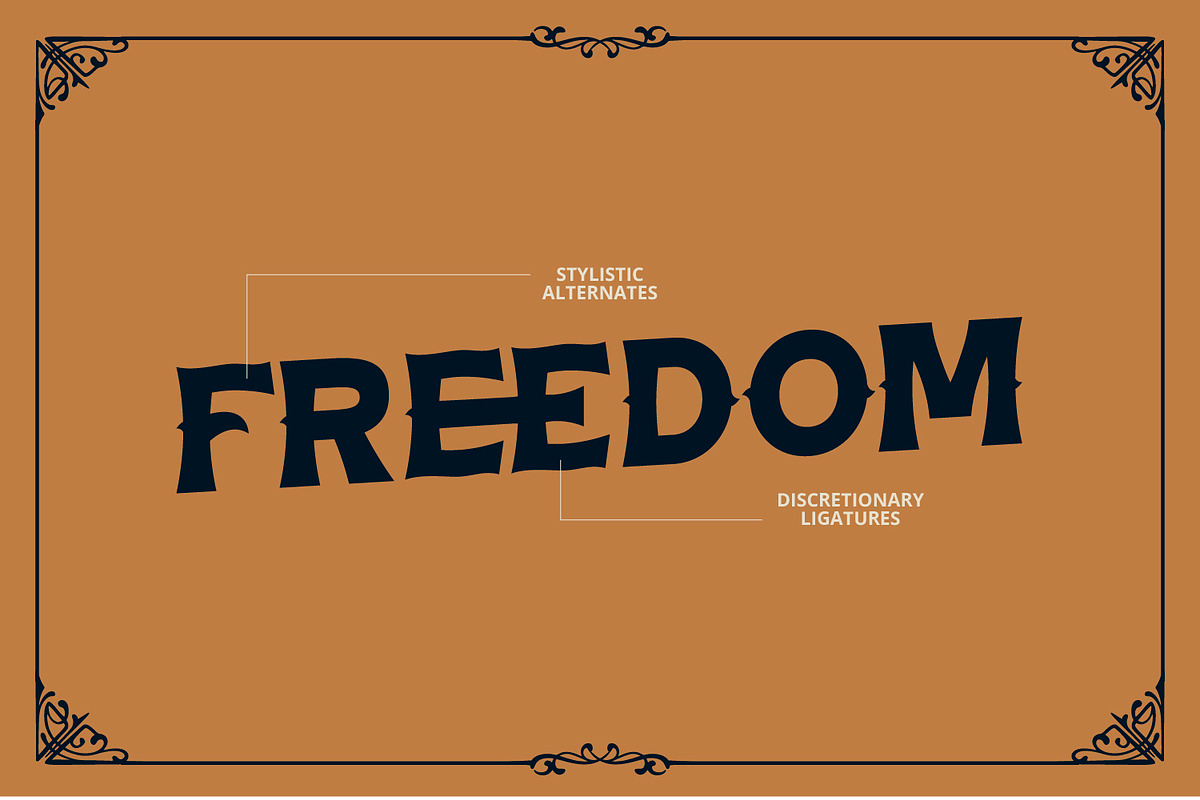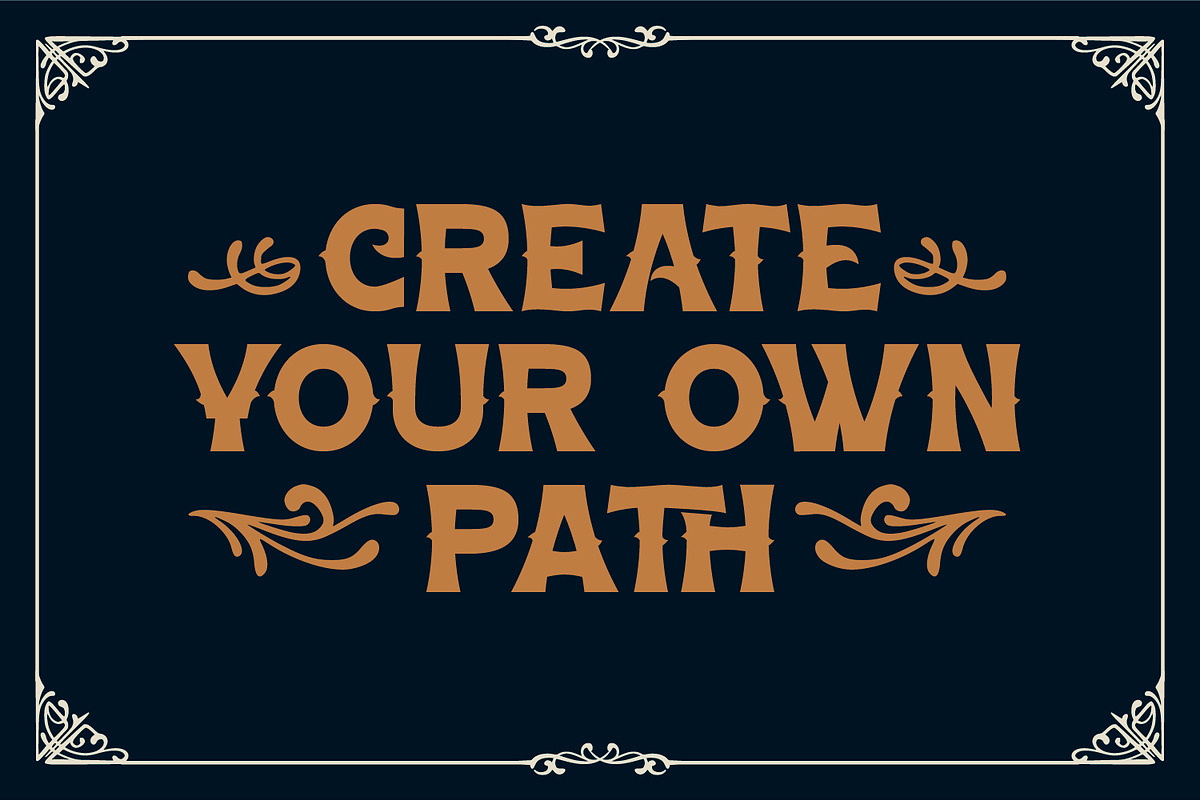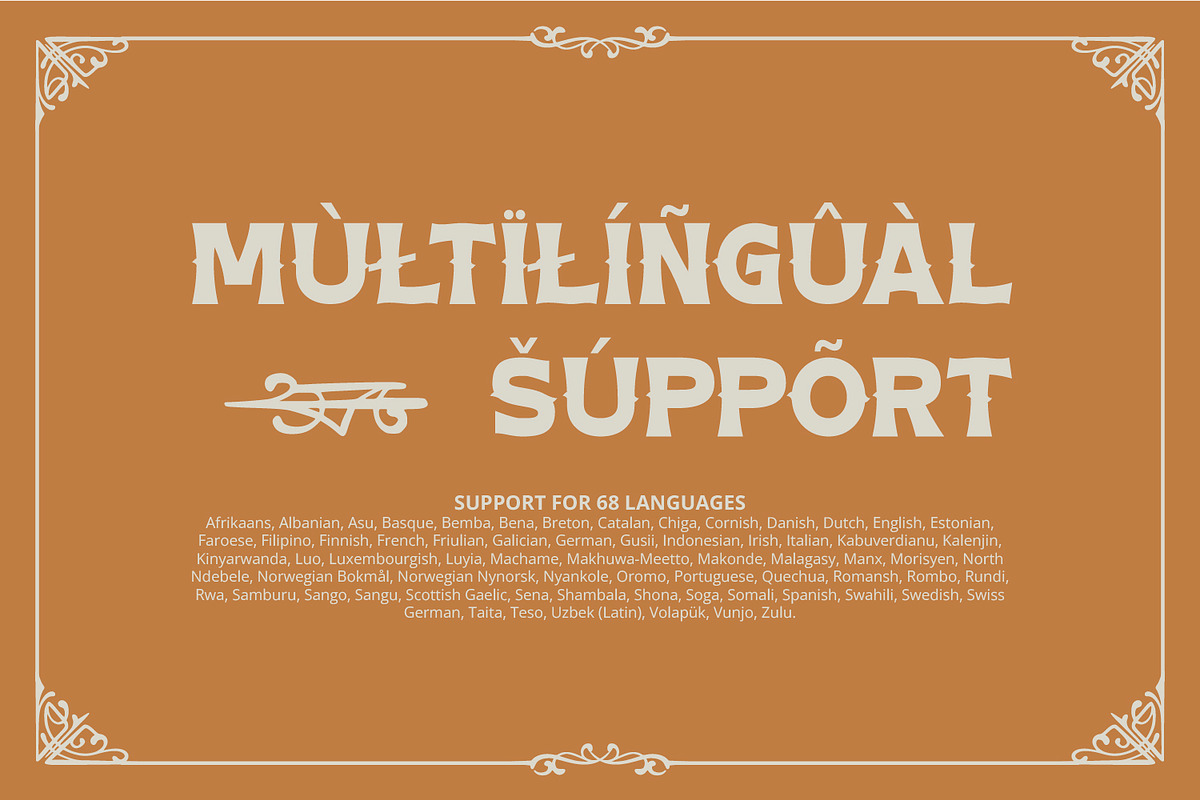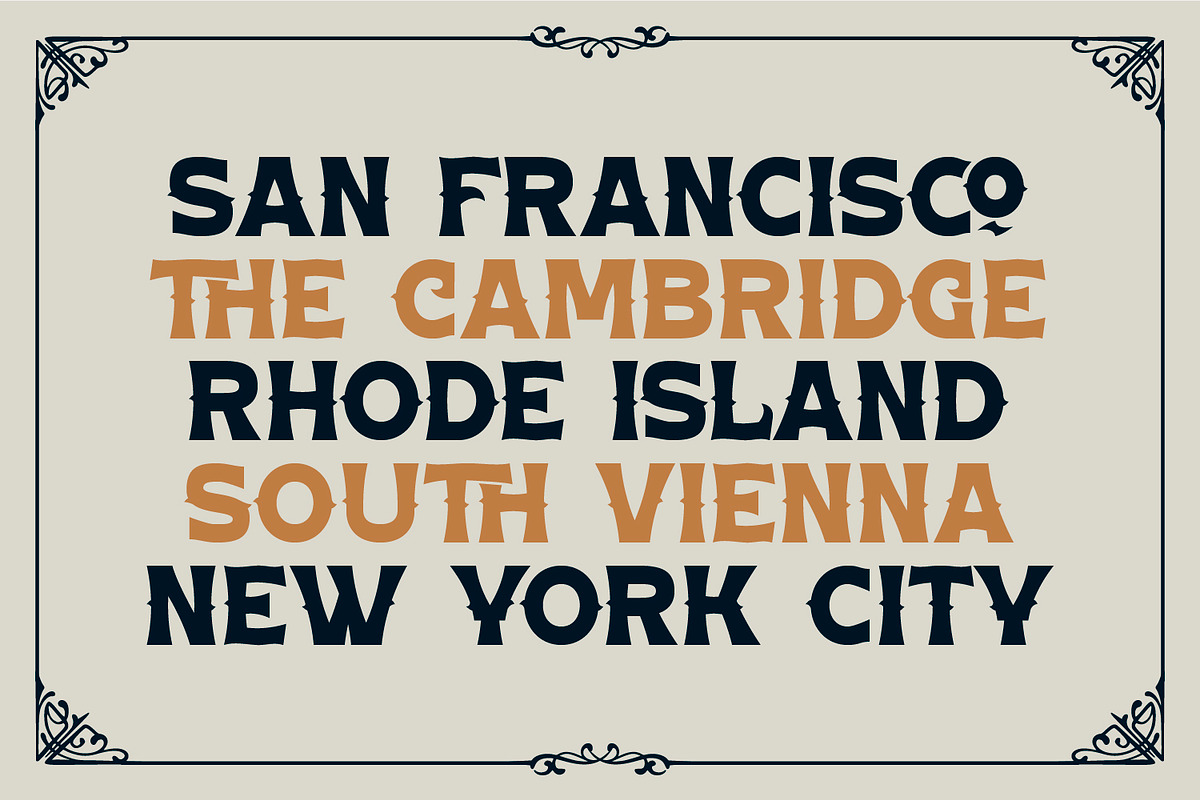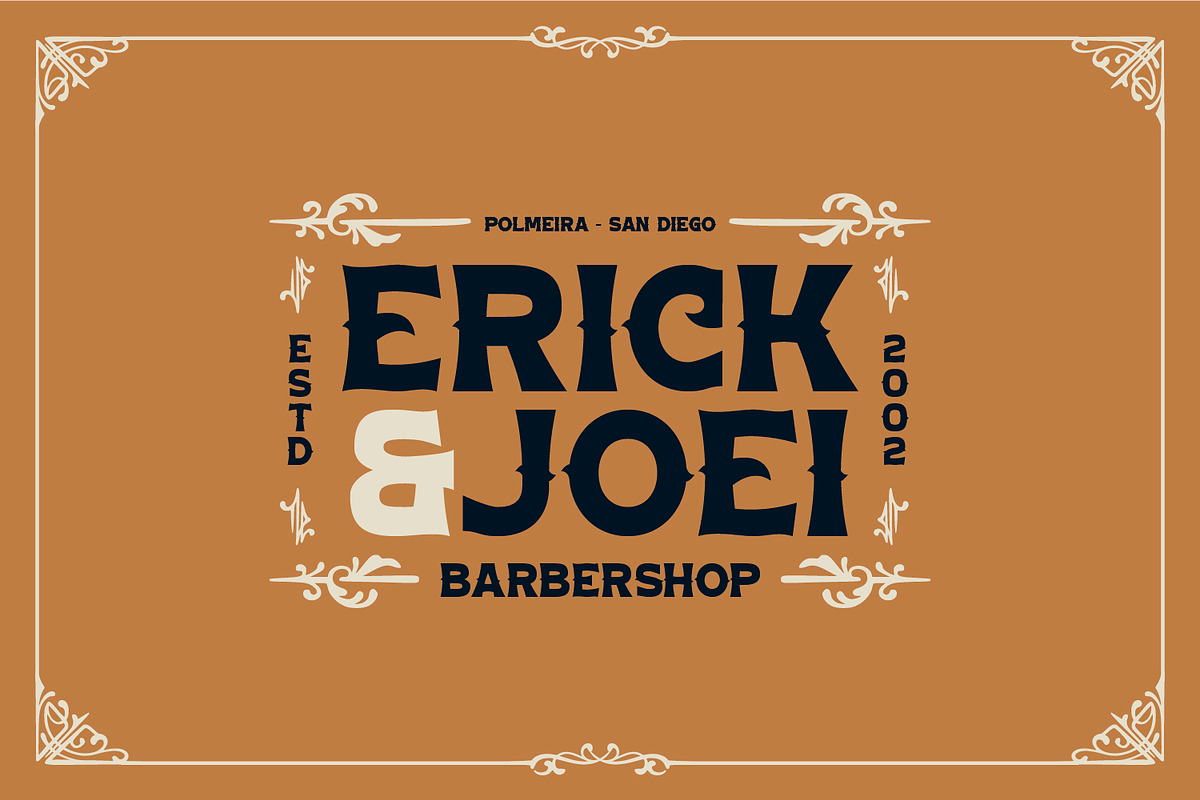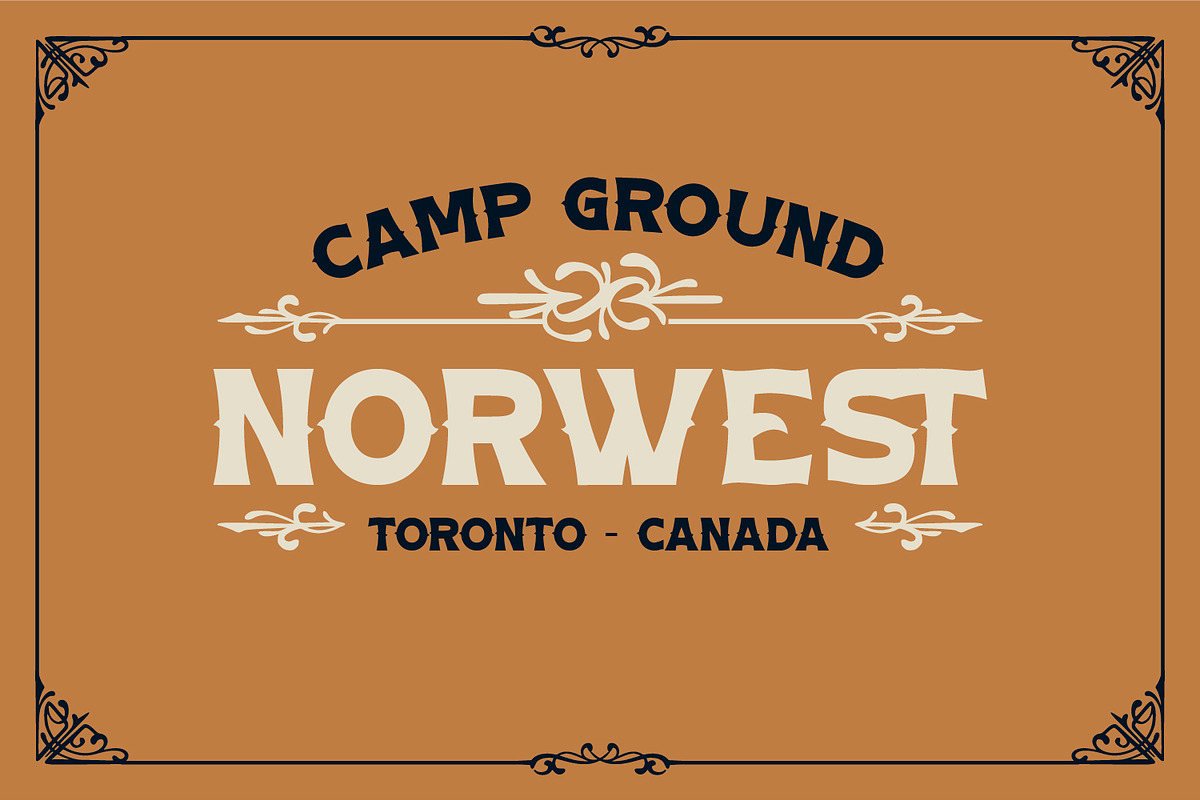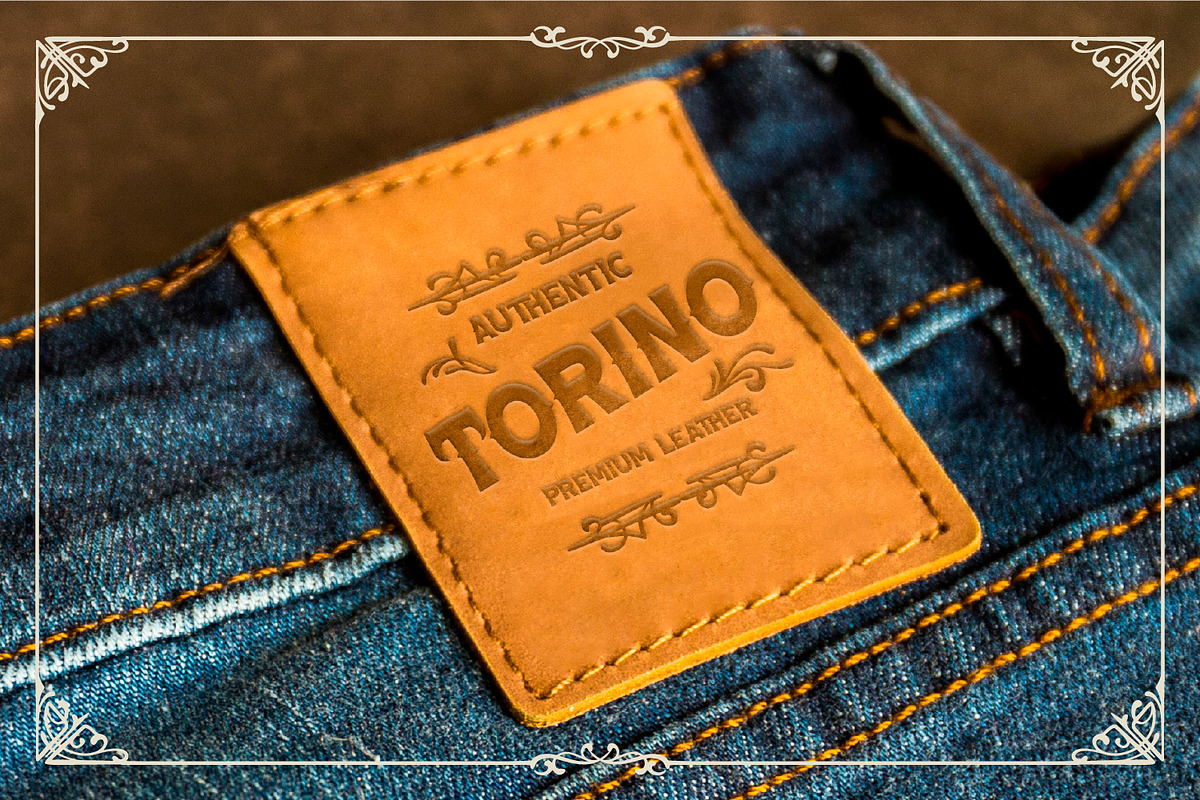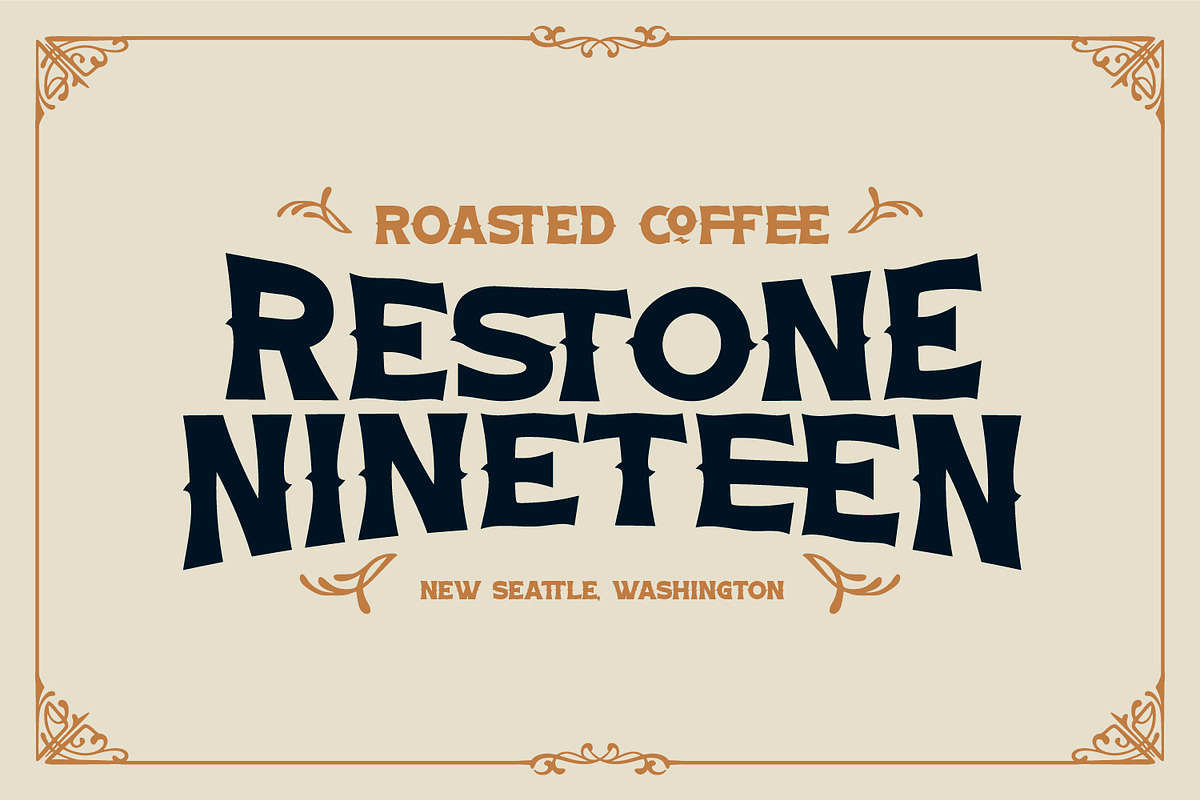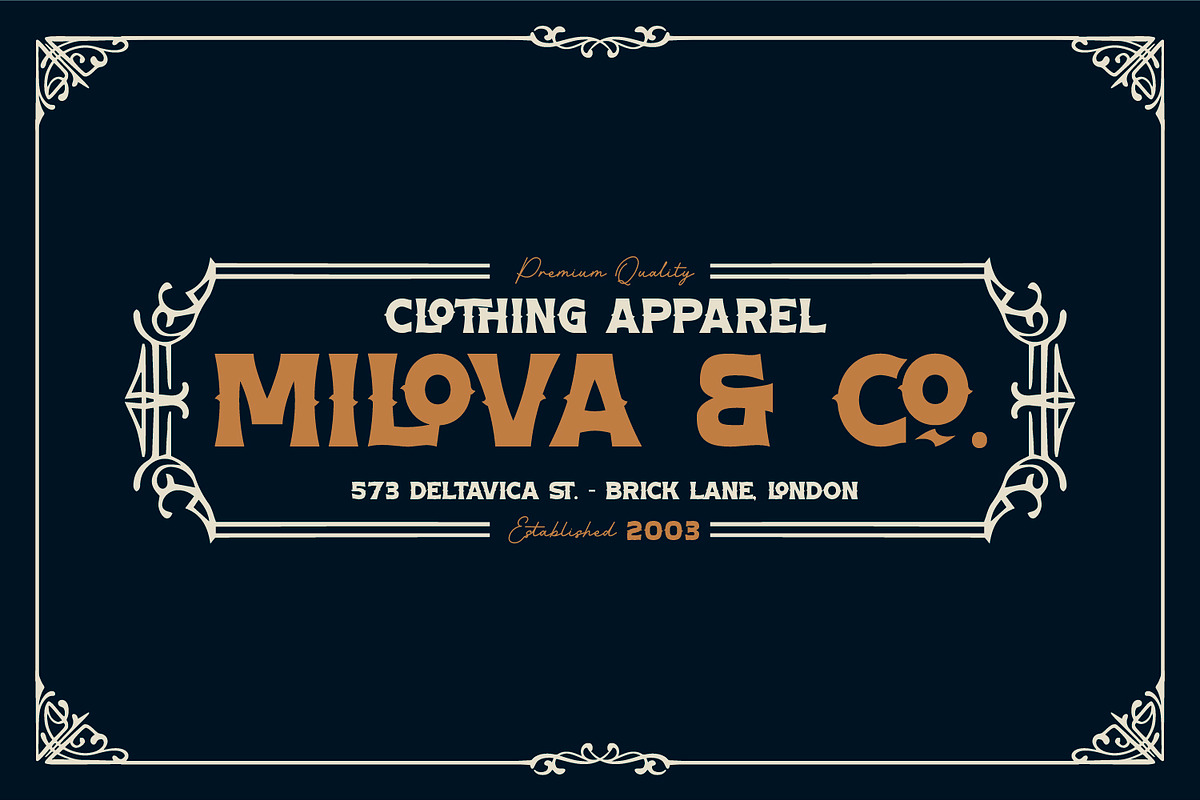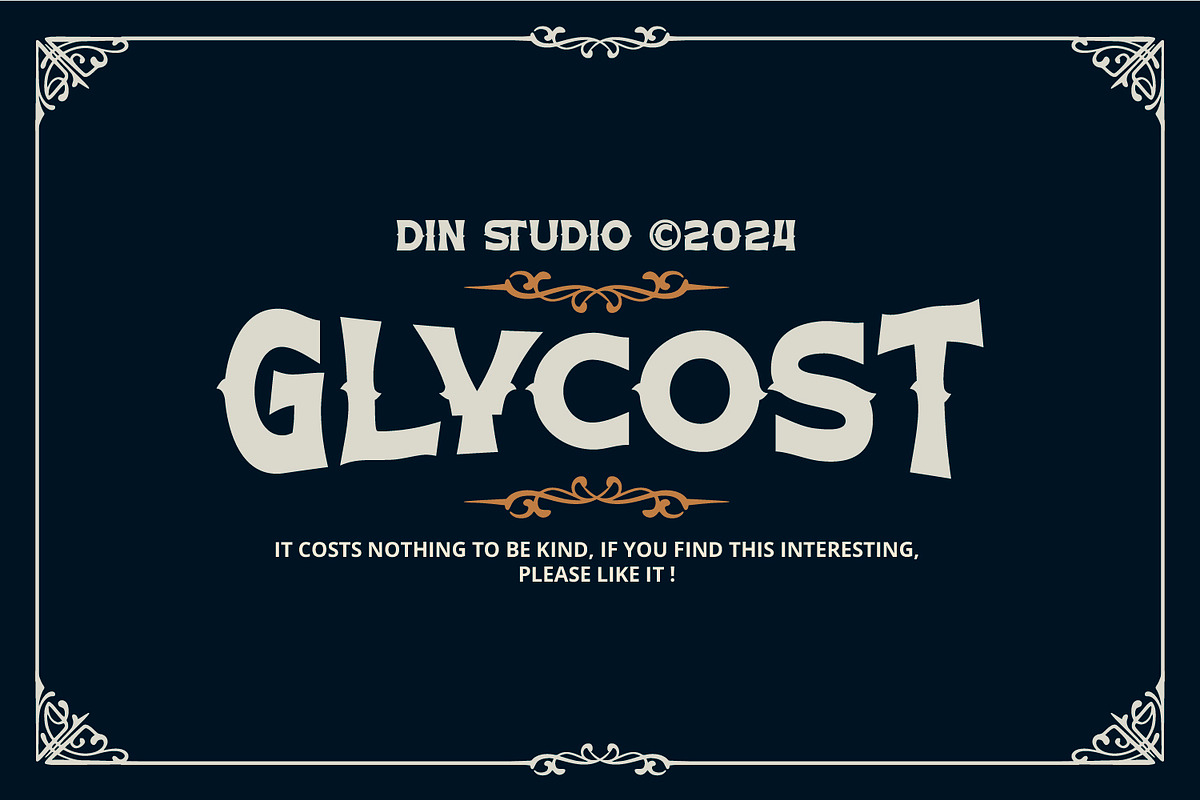
Glycost
Introducing Glycost, a bold and charming display font that blends vintage appeal with modern flair. Designed in uppercases with a strong, bold weight, Glycost shows rounded letterforms that offer a friendly yet impactful look. Each letter is carefully crafted with consistent proportions, ensuring smooth readability, while subtle decorative details add an extra layer of uniqueness and sophistication. This font also gives ornament sets as extra. In addition, enjoy the features here.
Glycost fits in headlines, logos, posters, branding materials, packaging, print media, editorial layouts, and many more designs. Find out more ways to use this font by taking a look at the font preview.